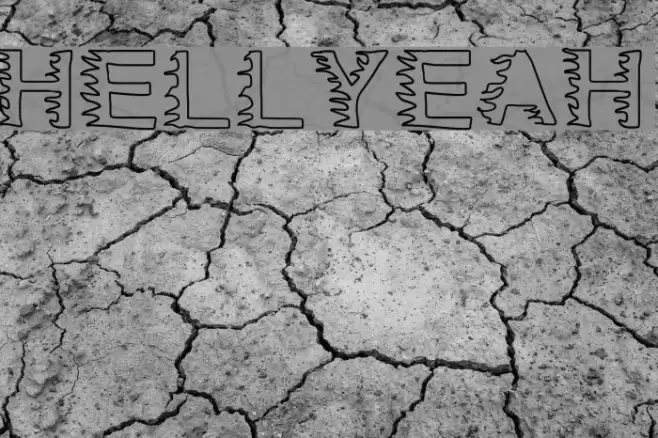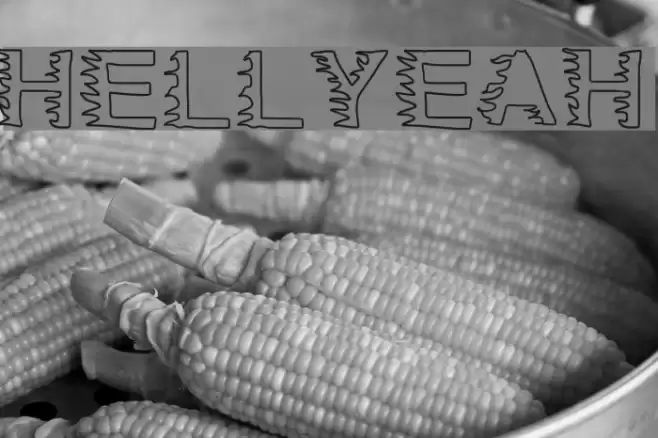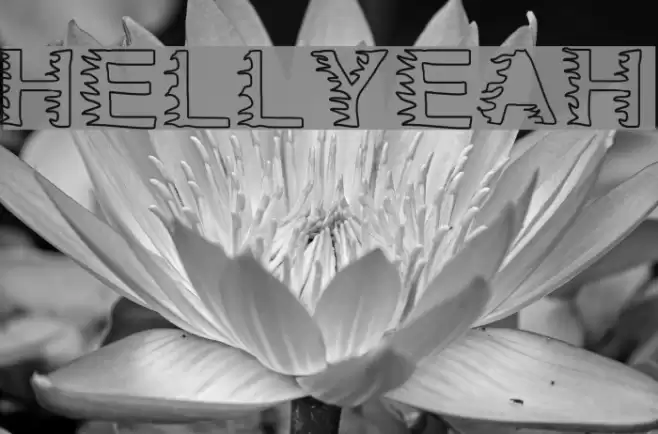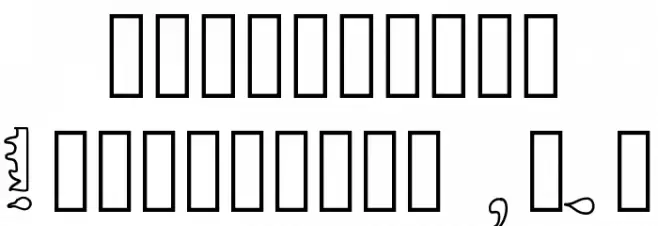
HellYeah Font
HellYeah Description
This font features a bold and playful design with a unique wavy outline that gives each letter a dynamic and energetic appearance. The uppercase letters are prominent and eye-catching, making them suitable for attention-grabbing headlines or titles. The lowercase letters maintain the same wavy style, ensuring consistency throughout the text. The numbers and special characters also follow this distinctive pattern, adding a cohesive look to any project. The overall style is decorative and modern, with a hint of whimsy, making it ideal for creative and fun projects.
A bold, wavy outlined font with a playful and dynamic style from Uncategorized fonts.
- Proposed Projects: Ideal for posters, event flyers, children's book covers, and any project requiring a fun and lively typeface.
- Overall Style: Modern, Decorative